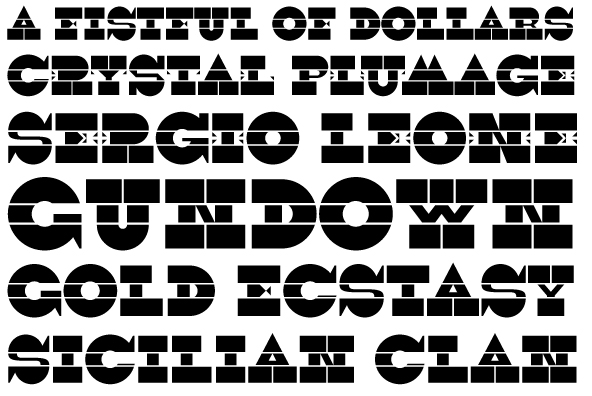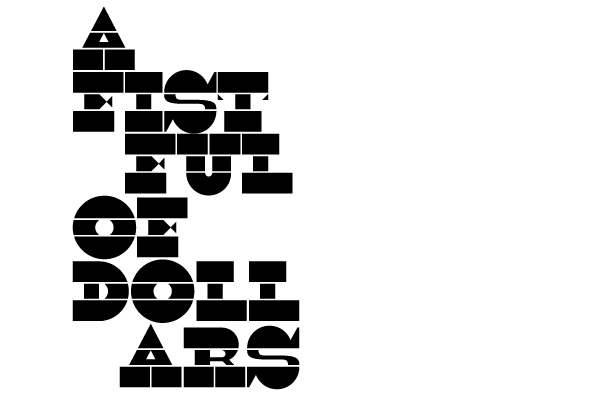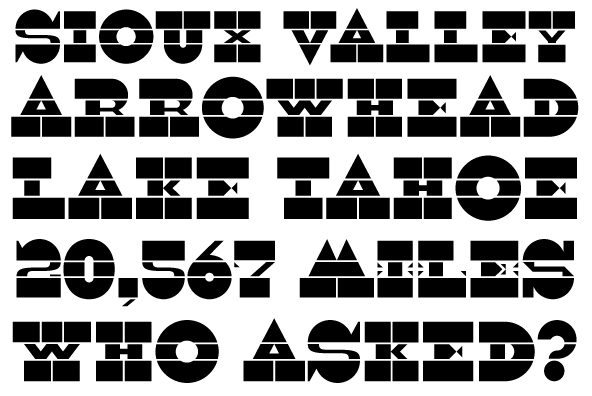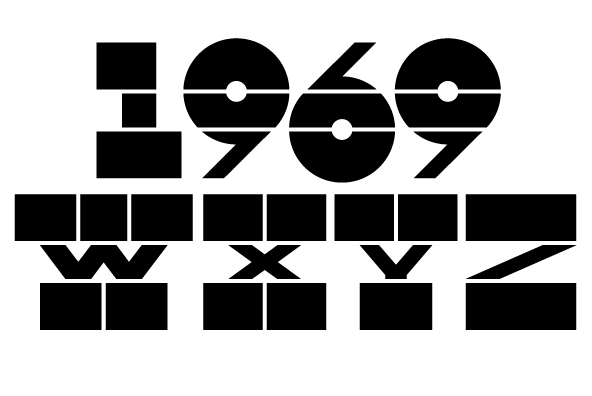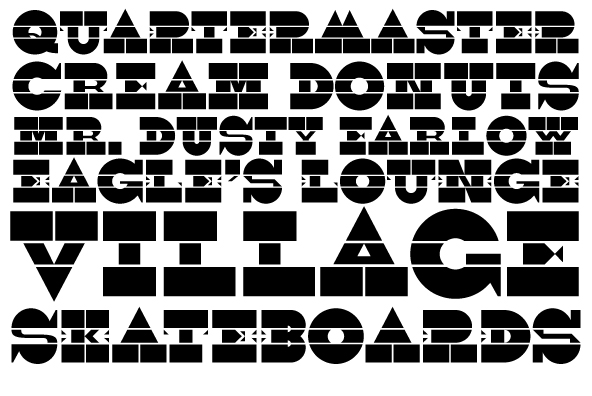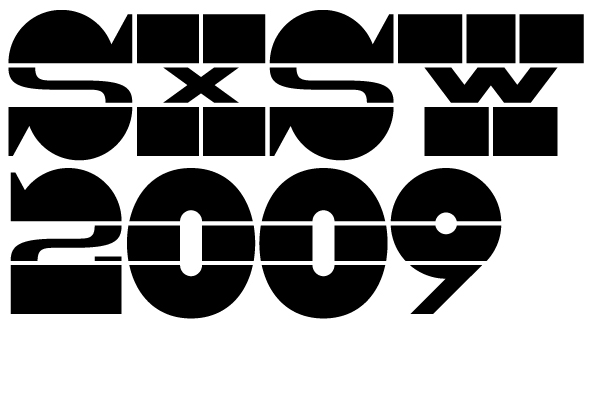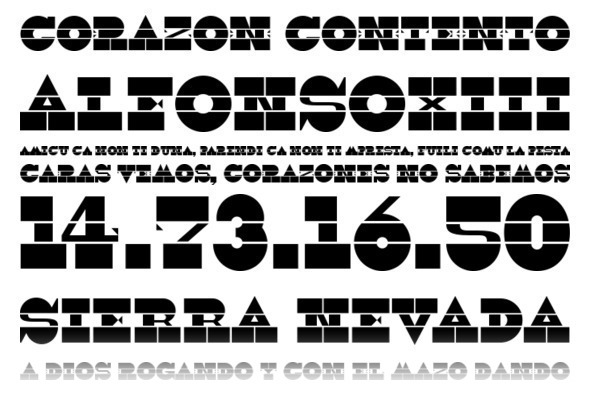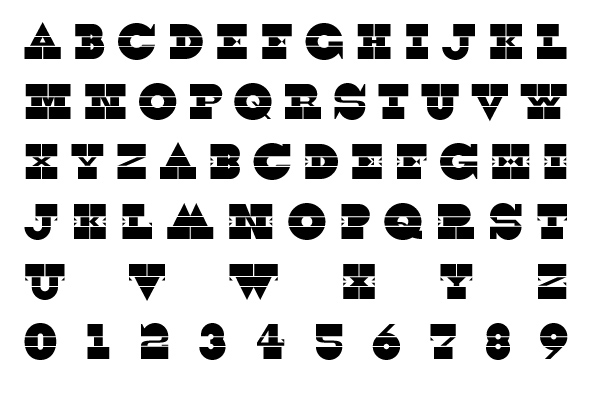
YWFT Morricone
YWFT Morricone is a combination of egyptian and italian slab serifs from the 1800s, with also simple geometric forms continuing from mid-century modernism. The design is a unicase setup, with alternates for the uppercase in the lowercase options. Although similar to some recent predecessors such as YWFT Black Slabbath, Morricone is a new gun with its own song. YWFT Morricone was named in honor of the famous Italian composer Ennio Morricone, who composed numerous classics for the spaghetti western movie genre.